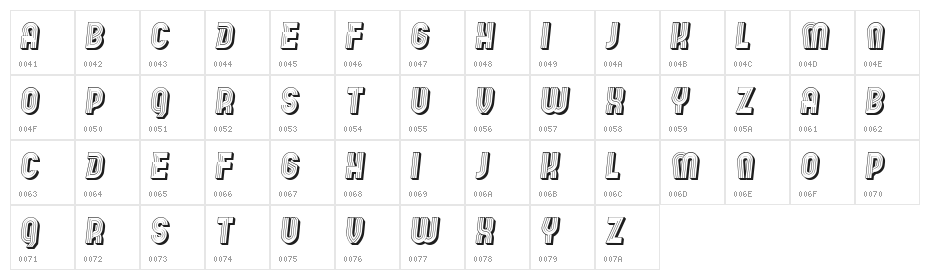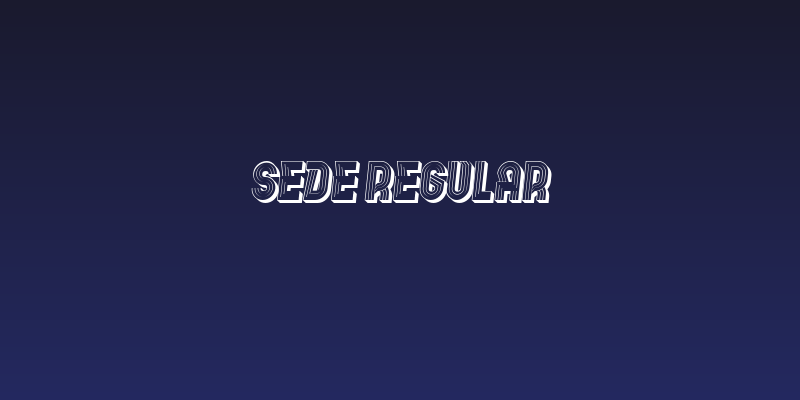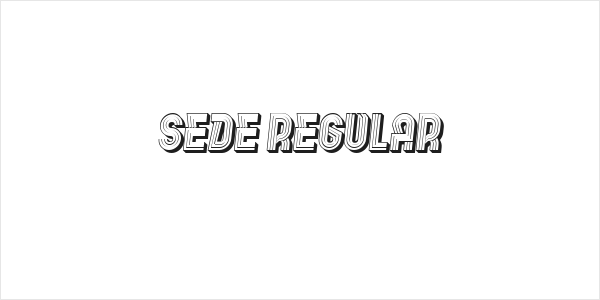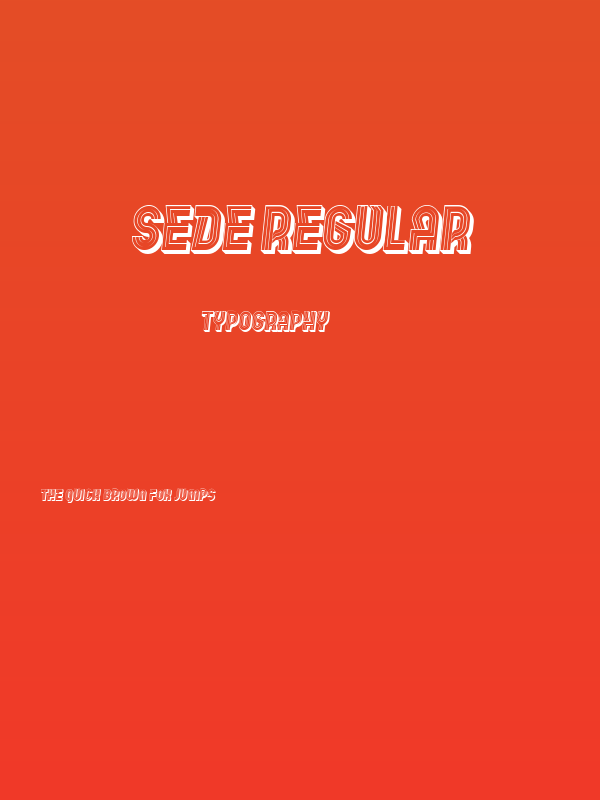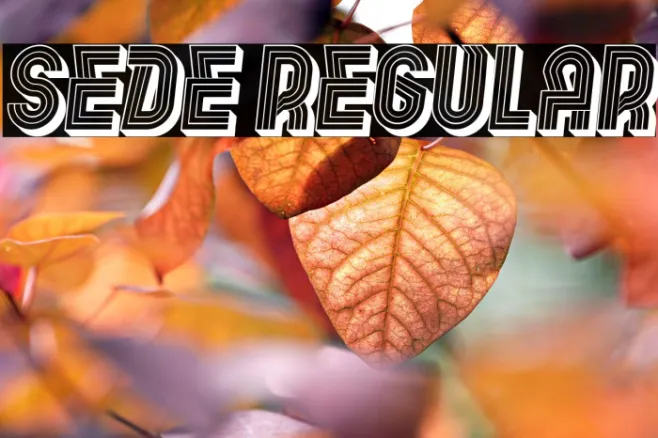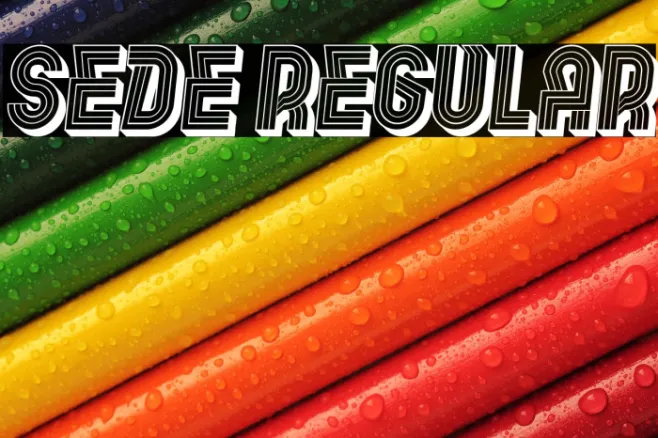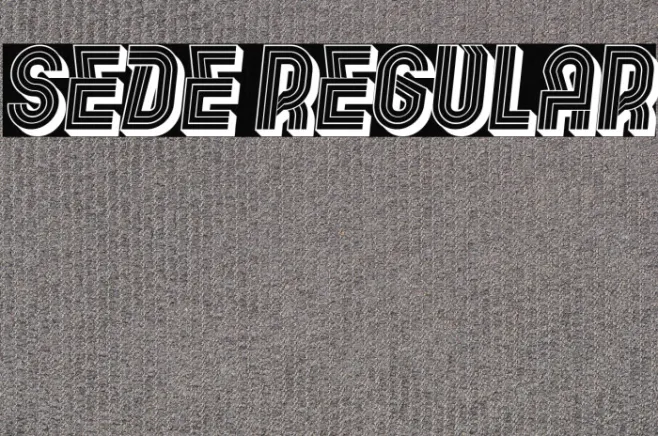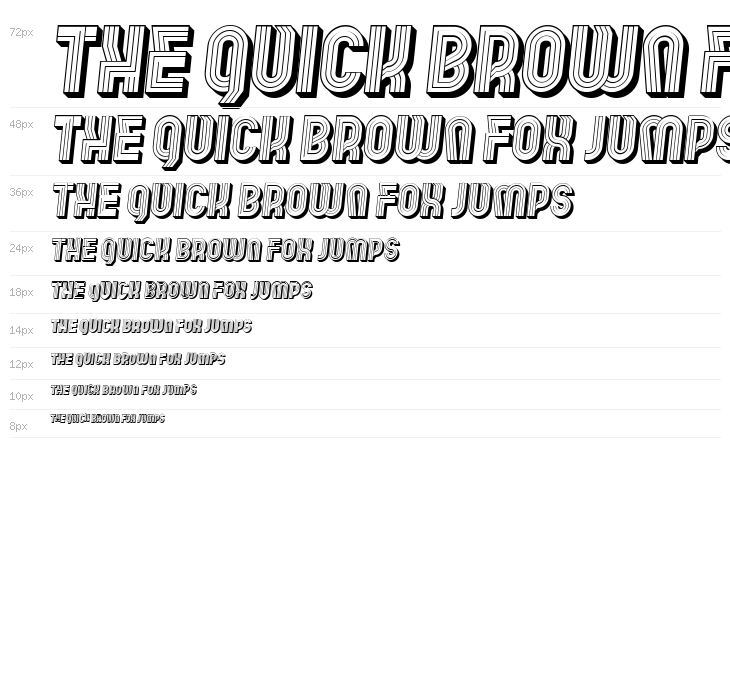
Sede Regular Font
Sede Regular Description
This font features a bold, decorative style with a unique three-dimensional effect created by multiple parallel lines. The characters are uppercase and exhibit a playful, retro aesthetic reminiscent of vintage signage. The lines create a sense of depth and movement, making it stand out in any design. The font's structure is solid and impactful, with each letter maintaining a consistent width and height, contributing to a uniform appearance. The intricate line work adds visual interest and complexity, making it suitable for eye-catching headlines or artistic projects.
| Proposed Projects | Ideal for retro-themed posters, eye-catching headlines, artistic designs, and branding that requires a vintage touch. |